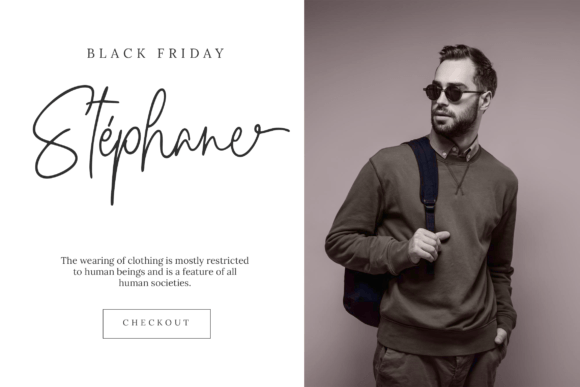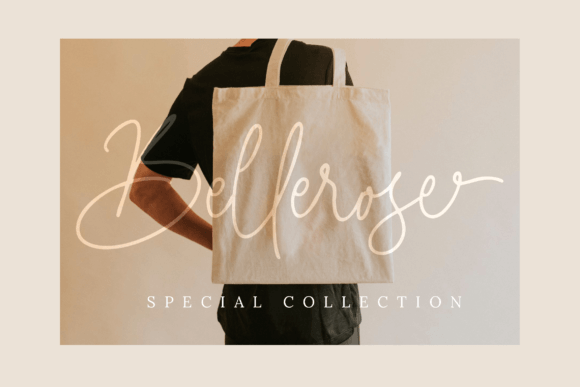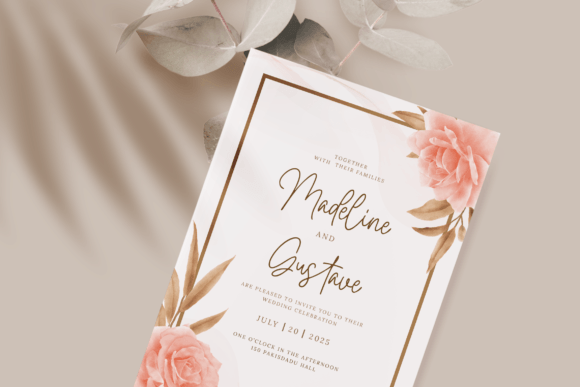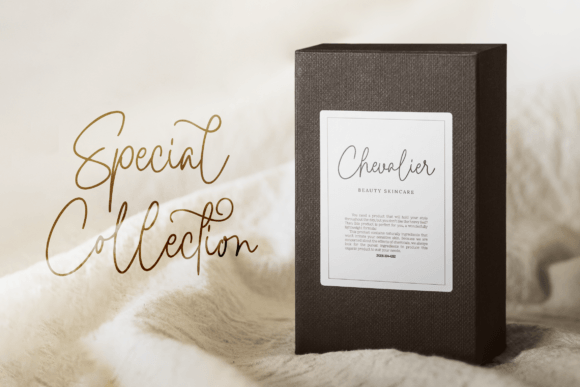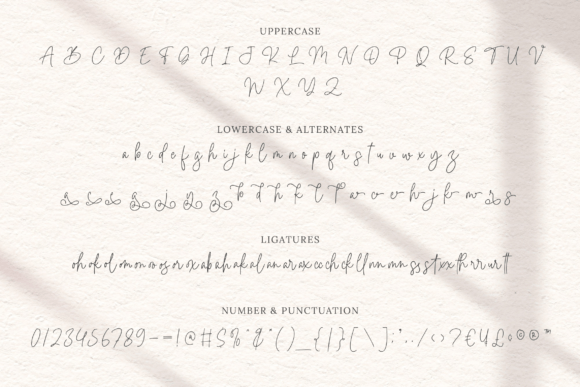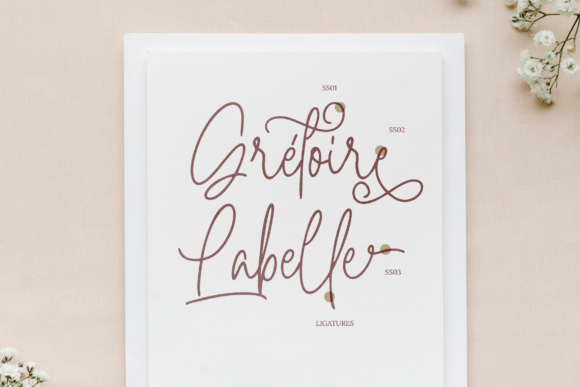
Bella Signature Font: Elevate Your Designs with Elegance and Charm
Are you looking for a font that exudes elegance and charm? Look no further than the Bella Signature Font. This beautiful handwritten font is perfect for adding a touch of sophistication to your designs, whether you’re working on wedding invitations, thank you cards, quotes, greeting cards, logos, business cards, or any other project that requires a personal and elegant feel.
The Characteristics of Bella Signature Font
Bella Signature Font is a stunning script font that features flowing lines, delicate curves, and a touch of whimsy. Its elegant and charming appearance makes it perfect for designs that require a personal and sophisticated touch. The font is highly legible, making it suitable for use in a variety of contexts, from formal invitations to social media graphics.
Why Choose Bella Signature Font?
There are many reasons why Bella Signature Font is a popular choice among designers and crafters. Here are just a few:
- Elegant and Charming: Bella Signature Font has a timeless elegance that makes it perfect for designs that require a sophisticated touch.
- Versatile: This font can be used in a variety of contexts, from wedding invitations to business cards, and from quotes to social media graphics.
- Easy to Read: The font is highly legible, making it easy to read and understand, even at small sizes.
- Unique: Bella Signature Font has a unique and distinctive appearance that sets it apart from other fonts.
How to Use Bella Signature Font
Bella Signature Font is easy to use and can be incorporated into your designs in a variety of ways. Here are a few ideas:
- Wedding Invitations: Use Bella Signature Font to create beautiful and elegant wedding invitations that set the tone for your special day.
- Thank You Cards: Add a personal touch to your thank you cards with this charming font.
- Quotes: Use Bella Signature Font to create stunning quote graphics that inspire and motivate.
- Greeting Cards: Create beautiful greeting cards for special occasions, such as birthdays, anniversaries, and holidays.
- Logos: Use Bella Signature Font to create a unique and elegant logo for your business or brand.
- Business Cards: Add a touch of sophistication to your business cards with this beautiful font.
Tips for Working with Bella Signature Font
Here are a few tips for working with Bella Signature Font:
- Use it Sparingly: Bella Signature Font is a beautiful font, but it can be overwhelming if used too much. Use it sparingly to create a sense of elegance and sophistication.
- Pair it with Other Fonts: Experiment with pairing Bella Signature Font with other fonts to create a unique and interesting look.
- Adjust the Size: Adjust the size of the font to create visual interest and hierarchy in your designs.
Bella Signature Font is a beautiful and elegant font that can elevate your designs and add a touch of sophistication. Its charming and unique appearance makes it perfect for a variety of contexts, from wedding invitations to business cards. With its high legibility and versatility, Bella Signature Font is a great choice for designers and crafters looking to create stunning and effective designs.